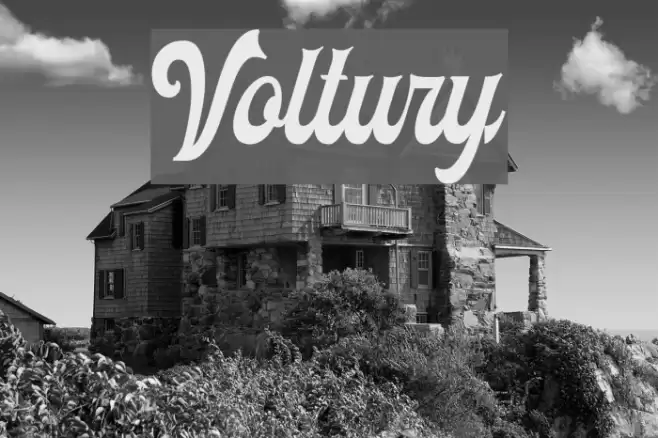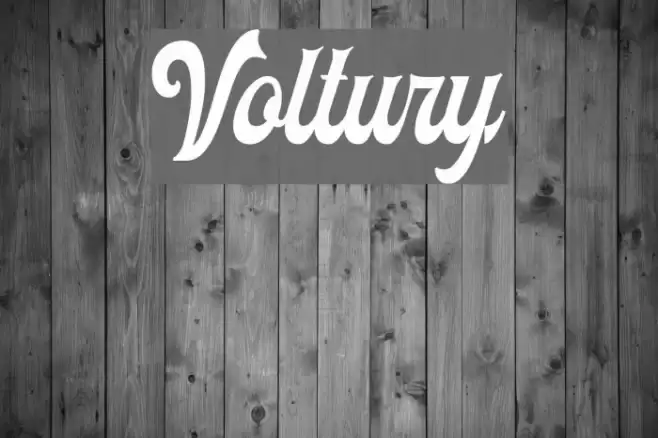
Voltury Font
Voltury Description
This font features a bold and dynamic script style with a strong presence. The characters are designed with a flowing, cursive aesthetic that conveys elegance and movement. The uppercase letters are particularly striking, with exaggerated curves and flourishes that add a sense of drama and sophistication. The lowercase letters maintain a consistent style, offering a harmonious blend with the uppercase. The numbers are equally bold, ensuring readability while maintaining the overall aesthetic. This font is ideal for projects that require a touch of elegance and flair, such as invitations, branding, and decorative headlines.
A bold, dynamic script font with elegant, flowing curves and dramatic flourishes from Uncategorized fonts.
- Proposed Projects: Ideal for invitations, branding, decorative headlines, and elegant designs.
- Use Case: Headlines, Logos, Invitations